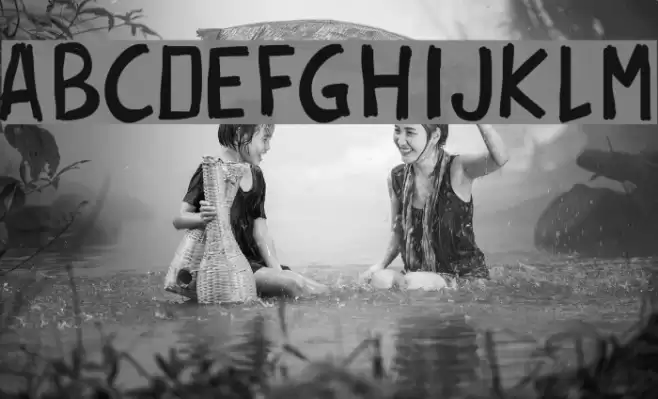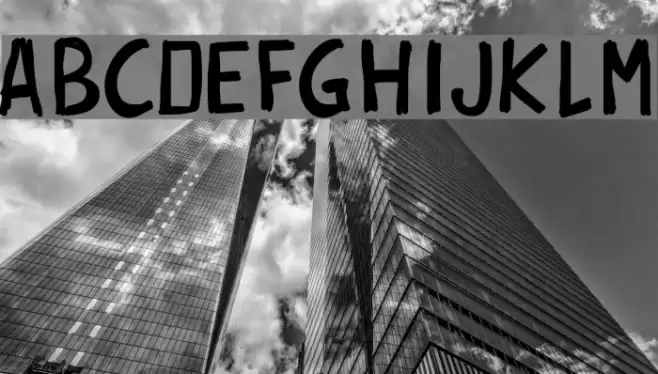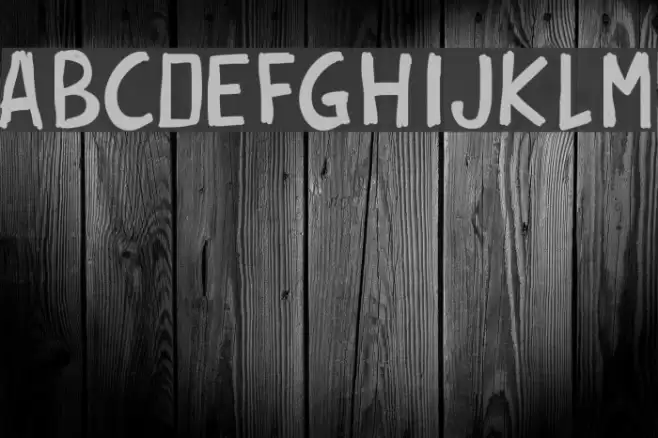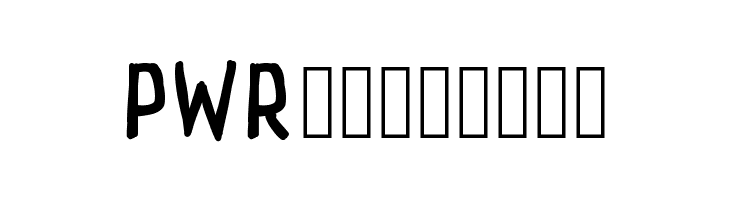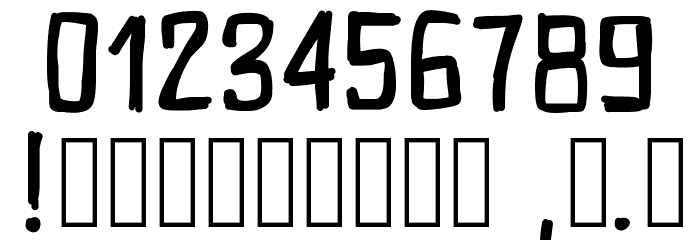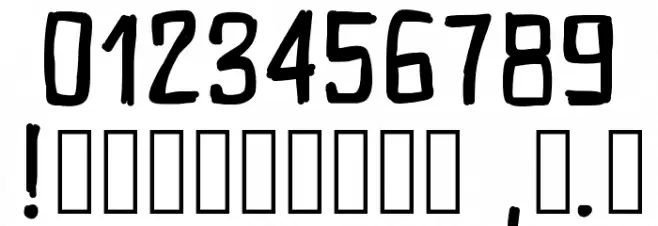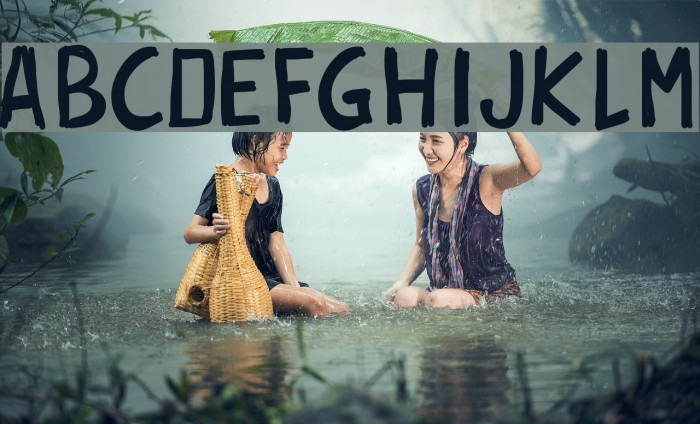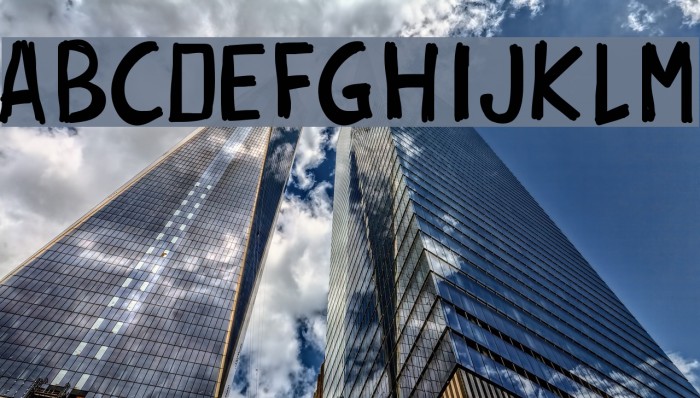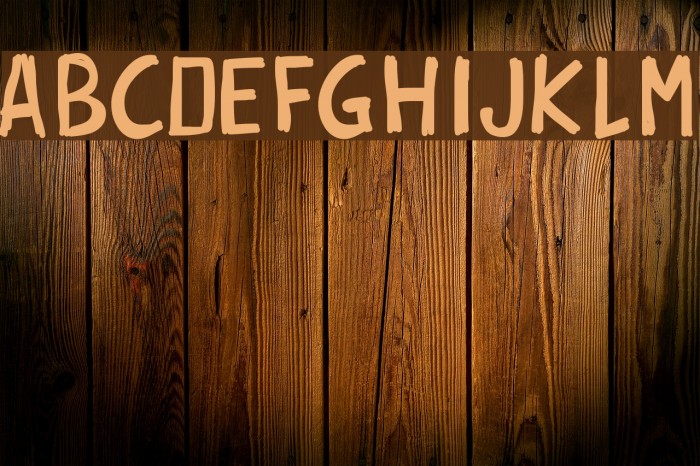
PWRectangle Font
PWRectangle Description
This font exhibits a bold and playful style with a hand-drawn appearance. The uppercase letters are slightly irregular, giving a casual and approachable feel. The numbers maintain the same playful aesthetic, with each character having a unique flair. The strokes are thick and consistent, contributing to a strong visual impact. The overall design is reminiscent of a comic or cartoon style, making it suitable for informal and creative projects. The characters are well-spaced, ensuring readability while maintaining the font's distinctive character.
A bold, playful, hand-drawn font with a comic style from Uncategorized fonts.
- Proposed Projects: Ideal for children's books, comic strips, casual branding, and playful posters.
- Overall Style: Playful, Comic